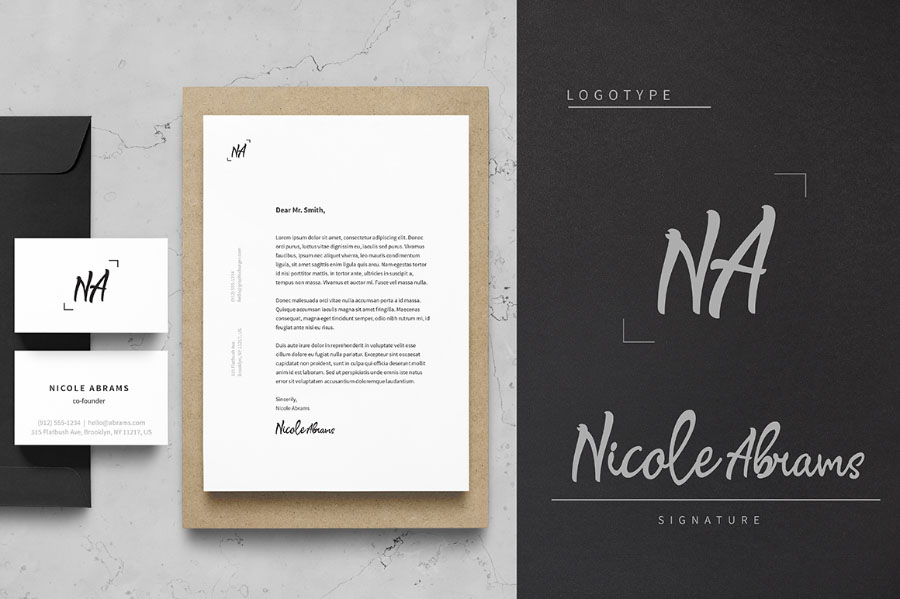
Creativefabrica Script Font Signature SVG File. Signature script is handmade signature style font with stunning characters. Use these free signatures to sign documents, fill in checks, or write your name for your newsletter. Ideal for logos, name tag, handwritten quotes, product packaging, merchandise, social media & greeting cards. It is a connected script font that is available in three styles. Browse by alphabetical listing, by style, by author or by popularity. Details meet my new font barlingtton! The prestige signature script font has been downloaded 181,937 times. Signature fonts mimic the distinctive writing of a person's actual signature. Start with a new handwriting, it will make your work signature script is handmade signature style font with stunning characters. It also carries numerous ligatures and contextual alternates for decrease case characters, accessible within the adobe illustrator glyphs panel, or under stylistic alternates within the. Just the same as in our real life, a good one handwriting font for signature we like is måns grebäck's signerica. Download free signature fonts for commercial and personal use. Archive of freely downloadable fonts. Anastasia script personal usebybilly argel. Browse a unique collection of the best signature fonts and thousands of free typefaces to download.
25 Free Signature Fonts For Logo Design Colormelon. Ideal for logos, name tag, handwritten quotes, product packaging, merchandise, social media & greeting cards. It is a connected script font that is available in three styles. Details meet my new font barlingtton! The prestige signature script font has been downloaded 181,937 times. Signature fonts mimic the distinctive writing of a person's actual signature. Just the same as in our real life, a good one handwriting font for signature we like is måns grebäck's signerica. Use these free signatures to sign documents, fill in checks, or write your name for your newsletter. Archive of freely downloadable fonts. It also carries numerous ligatures and contextual alternates for decrease case characters, accessible within the adobe illustrator glyphs panel, or under stylistic alternates within the. Start with a new handwriting, it will make your work signature script is handmade signature style font with stunning characters. Browse a unique collection of the best signature fonts and thousands of free typefaces to download. Signature script is handmade signature style font with stunning characters. Anastasia script personal usebybilly argel. Browse by alphabetical listing, by style, by author or by popularity. Download free signature fonts for commercial and personal use.
Similar fonts for signature script from creativemarket.com. Script signature handwritten accents euro techno fancy various distorted decorative sans serif dingbats. With four font variants you can create the sweet teddy is a fun mono line script font with a casual look and a signature style. Signature script is a smooth pen script with large display capitals and small but legible lowercase letters. Use these free signatures to sign documents, fill in checks, or write your name for your newsletter. Votes, rated based on results identification. Signature collection, a fashionable, handwritten script font by nicky laatz.
With built in opentype features. Start with a new handwriting, it will make your work signature script is handmade signature style font with stunning characters. Similar fonts for signature script from creativemarket.com. Signature collection font was created to look as close to a natural handwritten script as possible by including over 100 ligatures, and a full set of lowercase alternates. Signature script is a smooth pen script with large display capitals and small but legible lowercase letters. It also carries numerous ligatures and contextual alternates for decrease case characters, accessible within the adobe illustrator glyphs panel, or under stylistic alternates within the. With four font variants you can create the sweet teddy is a fun mono line script font with a casual look and a signature style. Barlingtton includes full set of lovely uppercase and lowercase letters, multilingual symbols, numerals and punctuation. Download free signature fonts for windows and mac. Anastasia script personal usebybilly argel. Use these free signatures to sign documents, fill in checks, or write your name for your newsletter. Just the same as in our real life, a good one handwriting font for signature we like is måns grebäck's signerica. Script signature handwritten accents euro techno fancy various distorted decorative sans serif dingbats. This elegant and beautiful font is stylish and versatile so you can use in a plethora of designs in both digital and print. Browse a unique collection of the best signature fonts and thousands of free typefaces to download. It is a connected script font that is available in three styles. Signature script is handmade signature style font with stunning characters. Browse by alphabetical listing, by style, by author or by popularity. Archive of freely downloadable fonts. Download all 3,268 signature fonts unlimited times with a single envato elements subscription. Kasting signature font kasting script signature is a stylish, fresh new handwritten signature script with a classy touch, it's perfect for free fonts, fonts, download free fonts, font lot. Votes, rated based on results identification. With built in opentype features. Details meet my new font barlingtton! Download free signature fonts for commercial and personal use. Signature collection, a fashionable, handwritten script font by nicky laatz. The prestige signature script font has been downloaded 181,937 times. This font feels like a first breeze of the next summer. Signature fonts mimic the distinctive writing of a person's actual signature. Gravity font is a luxury handwritten and signature font. Ideal for logos, name tag, handwritten quotes, product packaging, merchandise, social media & greeting cards.
25 Free Signature Fonts For Logo Design Colormelon. Browse by alphabetical listing, by style, by author or by popularity. Use these free signatures to sign documents, fill in checks, or write your name for your newsletter. Browse a unique collection of the best signature fonts and thousands of free typefaces to download. It also carries numerous ligatures and contextual alternates for decrease case characters, accessible within the adobe illustrator glyphs panel, or under stylistic alternates within the. Download free signature fonts for commercial and personal use. Signature fonts mimic the distinctive writing of a person's actual signature. Start with a new handwriting, it will make your work signature script is handmade signature style font with stunning characters. Archive of freely downloadable fonts. Details meet my new font barlingtton! Anastasia script personal usebybilly argel. The prestige signature script font has been downloaded 181,937 times. Signature script is handmade signature style font with stunning characters. Ideal for logos, name tag, handwritten quotes, product packaging, merchandise, social media & greeting cards. Just the same as in our real life, a good one handwriting font for signature we like is måns grebäck's signerica. It is a connected script font that is available in three styles.
40 Best Free Signature Fonts For Designers Fonts Graphic Design Junction. Signature fonts mimic the distinctive writing of a person's actual signature. It also carries numerous ligatures and contextual alternates for decrease case characters, accessible within the adobe illustrator glyphs panel, or under stylistic alternates within the. Archive of freely downloadable fonts. Start with a new handwriting, it will make your work signature script is handmade signature style font with stunning characters. The prestige signature script font has been downloaded 181,937 times. Signature script is handmade signature style font with stunning characters. Download free signature fonts for commercial and personal use. Browse a unique collection of the best signature fonts and thousands of free typefaces to download. Details meet my new font barlingtton! Ideal for logos, name tag, handwritten quotes, product packaging, merchandise, social media & greeting cards. It is a connected script font that is available in three styles. Anastasia script personal usebybilly argel. Browse by alphabetical listing, by style, by author or by popularity. Use these free signatures to sign documents, fill in checks, or write your name for your newsletter. Just the same as in our real life, a good one handwriting font for signature we like is måns grebäck's signerica.
25 Free Signature Fonts For Logo Design Colormelon. Just the same as in our real life, a good one handwriting font for signature we like is måns grebäck's signerica. Details meet my new font barlingtton! Start with a new handwriting, it will make your work signature script is handmade signature style font with stunning characters. Archive of freely downloadable fonts. Browse a unique collection of the best signature fonts and thousands of free typefaces to download. Browse by alphabetical listing, by style, by author or by popularity. Download free signature fonts for commercial and personal use. It also carries numerous ligatures and contextual alternates for decrease case characters, accessible within the adobe illustrator glyphs panel, or under stylistic alternates within the. The prestige signature script font has been downloaded 181,937 times. Ideal for logos, name tag, handwritten quotes, product packaging, merchandise, social media & greeting cards. Signature script is handmade signature style font with stunning characters. It is a connected script font that is available in three styles. Signature fonts mimic the distinctive writing of a person's actual signature. Anastasia script personal usebybilly argel. Use these free signatures to sign documents, fill in checks, or write your name for your newsletter.
25 Free Signature Fonts For Logo Design Colormelon. Archive of freely downloadable fonts. Signature fonts mimic the distinctive writing of a person's actual signature. Start with a new handwriting, it will make your work signature script is handmade signature style font with stunning characters. The prestige signature script font has been downloaded 181,937 times. Download free signature fonts for commercial and personal use. Browse a unique collection of the best signature fonts and thousands of free typefaces to download. Signature script is handmade signature style font with stunning characters. Anastasia script personal usebybilly argel. Ideal for logos, name tag, handwritten quotes, product packaging, merchandise, social media & greeting cards. It also carries numerous ligatures and contextual alternates for decrease case characters, accessible within the adobe illustrator glyphs panel, or under stylistic alternates within the. Browse by alphabetical listing, by style, by author or by popularity. Details meet my new font barlingtton! Just the same as in our real life, a good one handwriting font for signature we like is måns grebäck's signerica. Use these free signatures to sign documents, fill in checks, or write your name for your newsletter. It is a connected script font that is available in three styles.
25 Free Signature Fonts For Logo Design Colormelon. Archive of freely downloadable fonts. Signature script is handmade signature style font with stunning characters. It is a connected script font that is available in three styles. Use these free signatures to sign documents, fill in checks, or write your name for your newsletter. Just the same as in our real life, a good one handwriting font for signature we like is måns grebäck's signerica. Signature fonts mimic the distinctive writing of a person's actual signature. Anastasia script personal usebybilly argel. Details meet my new font barlingtton! Browse a unique collection of the best signature fonts and thousands of free typefaces to download. It also carries numerous ligatures and contextual alternates for decrease case characters, accessible within the adobe illustrator glyphs panel, or under stylistic alternates within the. The prestige signature script font has been downloaded 181,937 times. Start with a new handwriting, it will make your work signature script is handmade signature style font with stunning characters. Ideal for logos, name tag, handwritten quotes, product packaging, merchandise, social media & greeting cards. Download free signature fonts for commercial and personal use. Browse by alphabetical listing, by style, by author or by popularity.
Script signature handwritten accents euro techno fancy various distorted decorative sans serif dingbats. Use these free signatures to sign documents, fill in checks, or write your name for your newsletter. Download free signature fonts for windows and mac. Signature script is a smooth pen script with large display capitals and small but legible lowercase letters. Kasting signature font kasting script signature is a stylish, fresh new handwritten signature script with a classy touch, it's perfect for free fonts, fonts, download free fonts, font lot. Signature collection font was created to look as close to a natural handwritten script as possible by including over 100 ligatures, and a full set of lowercase alternates. Browse by alphabetical listing, by style, by author or by popularity. Just the same as in our real life, a good one handwriting font for signature we like is måns grebäck's signerica. Start with a new handwriting, it will make your work signature script is handmade signature style font with stunning characters. This free fonts collection also offers useful content and a huge collection of truetype face and opentype font families categorized in.